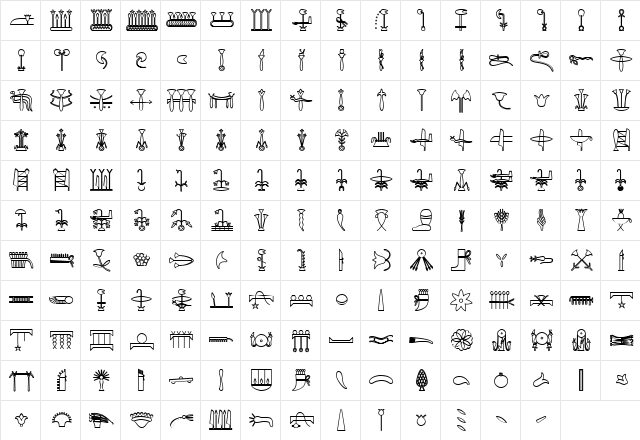
GlyphExtLibL Bold
Design Context for GlyphExtLibL Typeface
GlyphExtLibL is a composed and adaptable typeface that performs quietly and consistently across a wide range of design contexts. Its bold stroke weight gives it real presence on the page.